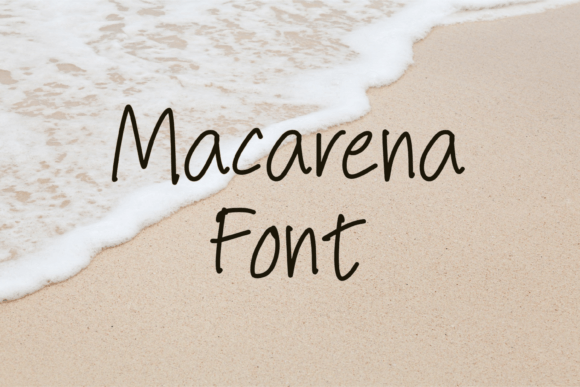
Unleash your creativity with the enchanting Macarena Font, a captivating script that exudes charm and elegance. Its graceful curves and playful strokes add a touch of whimsy to any project, evoking a sense of joy and wonder. Whether you're designing a captivating poster, a stylish logo, or a heartfelt invitation, Macarena Font is sure to make your words dance off the page.
Immerse yourself in a world of possibilities with Macarena Font. Its versatile personality shines through in a myriad of creative applications, from trendy social media posts to eye-catching branding materials. Its ability to effortlessly blend with various design styles makes it a must-have for designers and typography enthusiasts alike. Whether you're seeking a touch of vintage charm or a modern, contemporary aesthetic, Macarena Font seamlessly adapts to your vision.
With Macarena Font, you'll embark on a journey of visual storytelling, crafting designs that captivate and inspire. Its unique character breathes life into your words, transforming them into visual masterpieces. Let your imagination run wild as you explore the endless possibilities of this remarkable font, creating designs that leave a lasting impression.
So, dive into the world of Macarena Font today and unlock a realm of creative expression. Its charm, versatility, and captivating nature will ignite your imagination and elevate your designs to new heights. Experience the magic of Macarena Font and let your creativity soar.